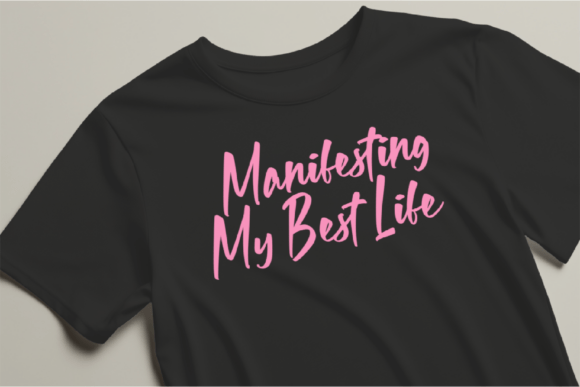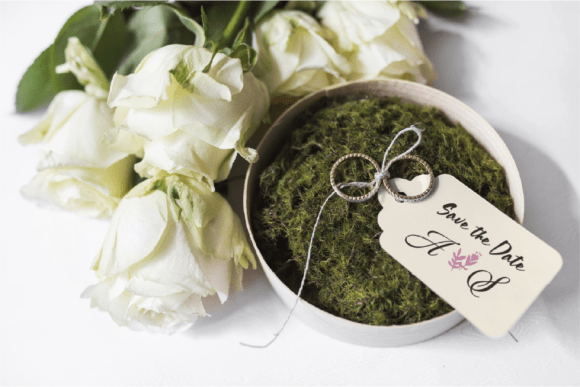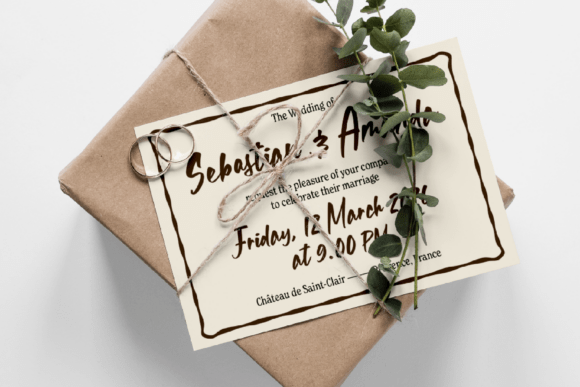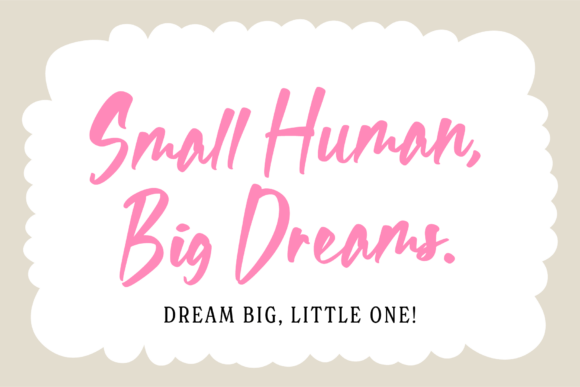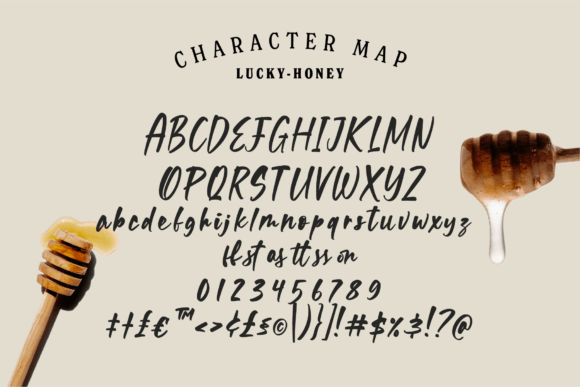
Introduction to Lucky Honey Font Font
Fonts play a crucial role in design, and the Lucky Honey Font font is a typeface that brings both character and versatility to any project. Whether you’re working on a branding project, a website, or a print design, the Lucky Honey Font font offers a unique style that can elevate your work.
Immerse yourself in the charm of Lucky Honey – a handwritten script font that turns any simple composition into a lively, personal, and joyful work of art.
Tailored for DIY enthusiasts, Lucky Honey adds a spark of warmth, transforming personalized kid’s clothing, greeting card designs or home decor labels into a homely masterpiece The font, with its fluid and legible characters, is suited just as beautifully for headline statements as it is for cute, heartfelt messages.
Key Features of Lucky Honey Font Font
Why Choose Lucky Honey Font Font?
The Lucky Honey Font font is more than just a typeface – it’s a design tool that helps you communicate your message with style and clarity. Its unique character set and versatile design make it suitable for a wide range of applications, from elegant invitations to bold headlines.
With its carefully crafted letterforms and balanced proportions, the Lucky Honey Font font ensures readability and visual appeal across all mediums.
What makes Lucky Honey Font font special?
The Lucky Honey Font font stands out with its unique design, exceptional readability, and versatility across various design applications.